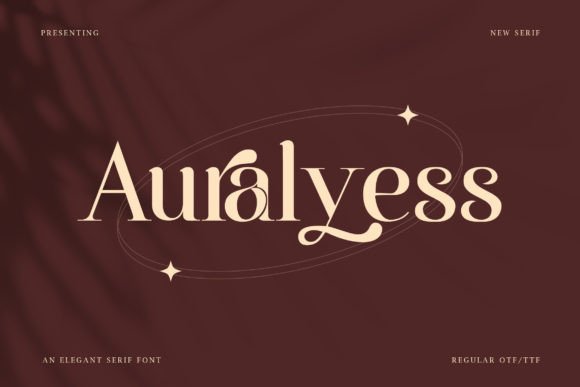
Behold, Auralyess Font, an exceptional serif font that effortlessly blends timeless elegance with a refreshing contemporary aura. Let your designs transcend the boundaries of the ordinary and enter a realm of visual sophistication.
Auralyess's exquisite curves and delicate strokes exude an air of sophistication and professionalism, making it the perfect choice for business logos. Whether you're a budding entrepreneur or a seasoned professional, Auralyess will elevate your brand's identity to new heights. Its captivating presence will leave an unforgettable impression on your audience, evoking a sense of trust and credibility.
With Auralyess at your disposal, design possibilities are endless. This versatile font is expertly crafted to complement a wide range of projects, from marketing materials and brochures to website designs and social media graphics. Its intuitive design allows you to effortlessly create visually stunning compositions that captivate and engage your audience.
Embrace the power of Auralyess and witness your designs transform into masterpieces. This font is your gateway to a world of creative expression, where ideas take shape with elegance and finesse. Don't settle for ordinary fonts; choose Auralyess and embark on a journey of design excellence.